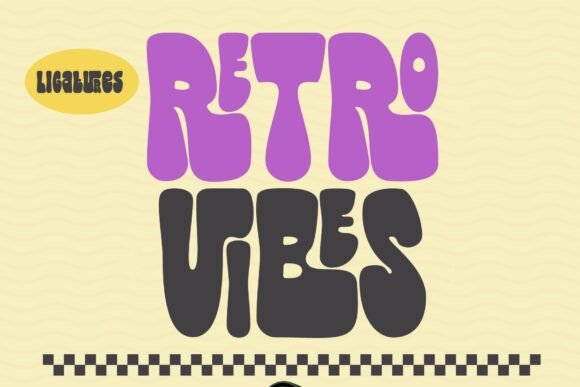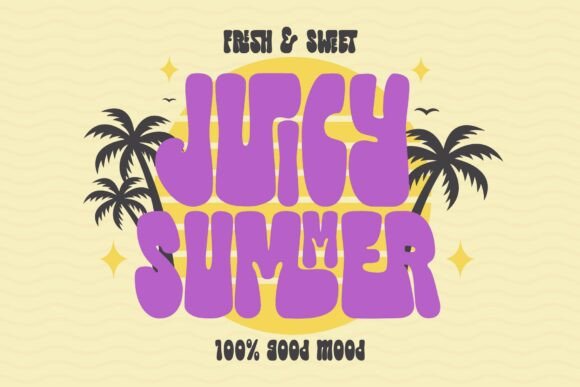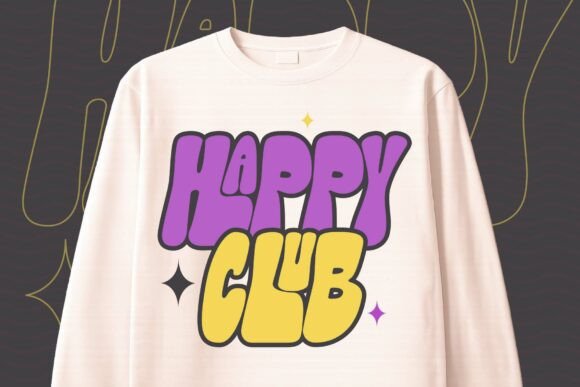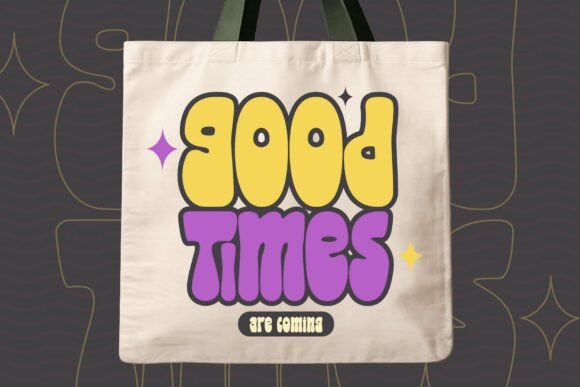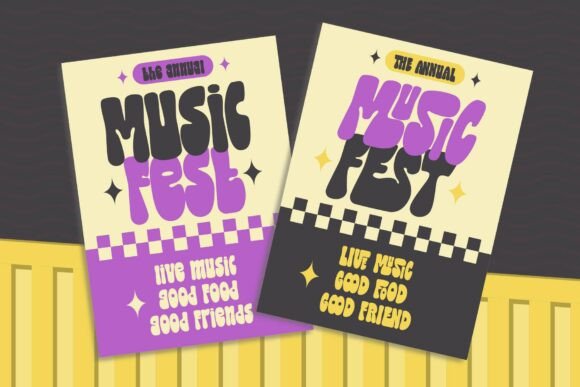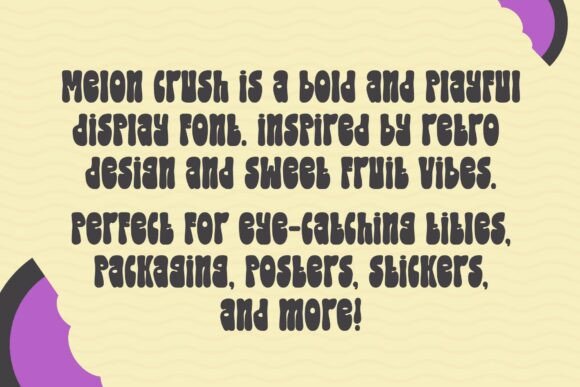
Introduction to Melon Crush Font
Introducing Melon Crush; a vivid and bold display font radiating delightful charm.
Inspired by nostalgic retro styles intertwined with the mouthwatering temptation of zesty fruits, it makes the perfect selection for creating eye-catching titles, vivacious packaging designs, communicative posters, ornamental stickers and beyond Add a dash of joy to every project with the enchanting aura of Melon Crush.
Key Features of Melon Crush Font